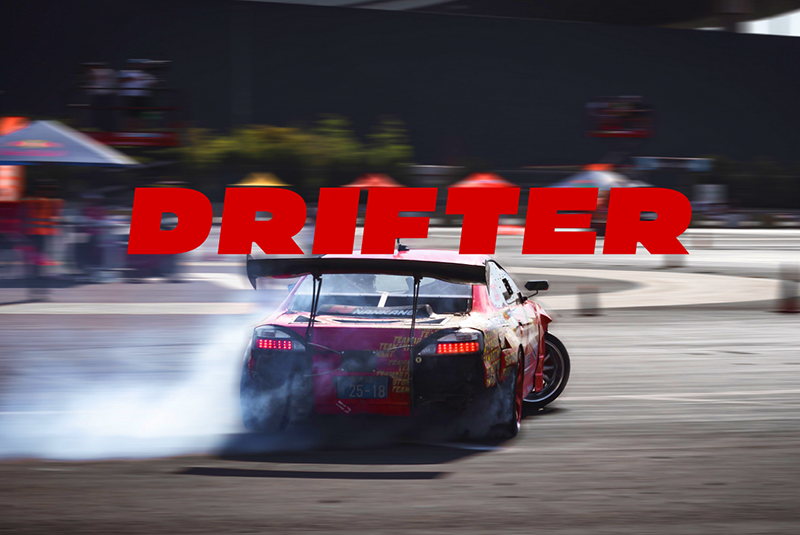
Preview and download Drifter Font. Created by 4RM Font in Basic Sans serif styles with Free for personal use license.
Font name: | Drifter |
Author: | 4RM Font |
Inspired by the speed of drifters. This font is made with a unique and cool value, this font has an aggressive impression and is suitable for use in graphic designs related to racing. -This font available with license FREE PERSONAL USE LICENSE -Here is a link to buy a commercial license of full version Drifter font : myfonts.com |